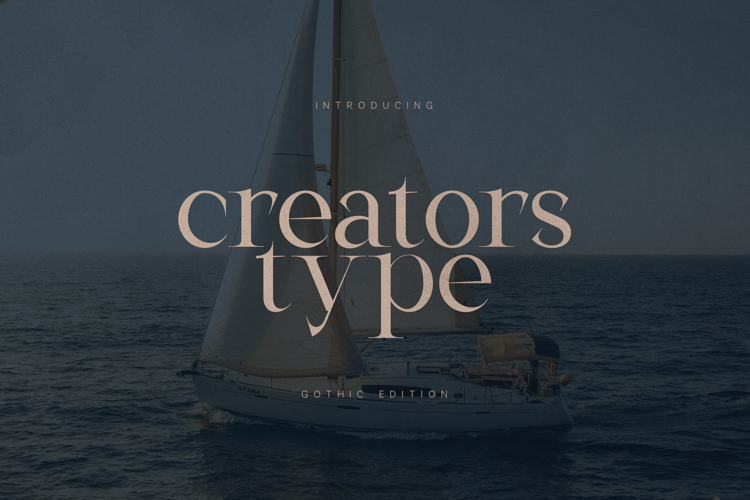
Creators Type Gothic Edition
Creators Type – Gothic Edition is a refined serif typeface designed for modern storytelling with a classic soul. Inspired by editorial design, literature, and cinematic atmospheres, this font balances elegance and character with beautifully sculpted letterforms and subtle contrast.
Perfect for branding, book covers, magazines, posters, fashion editorials, logos, and high-end typography projects. Its timeless serif construction delivers clarity while adding emotional depth and sophistication to any layout.
The font includes uppercase and lowercase letters, numbers, punctuation, symbols, and extensive multilingual support, making it a versatile choice for both digital and print use.